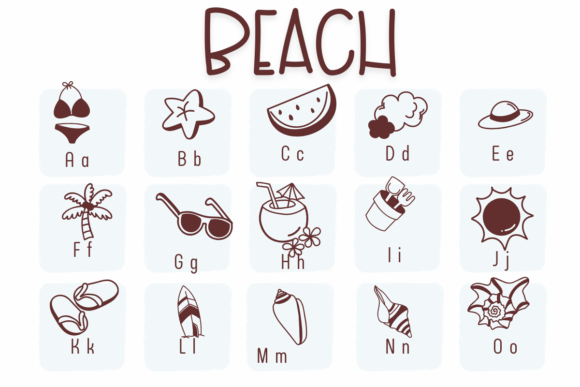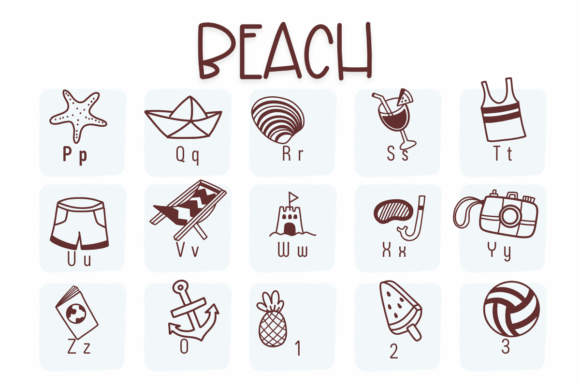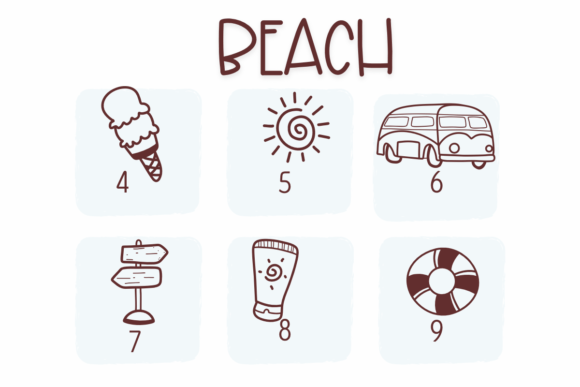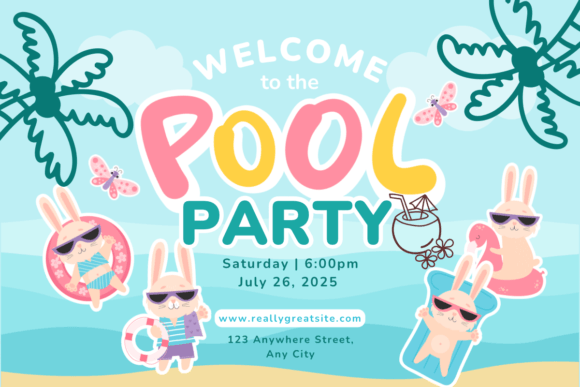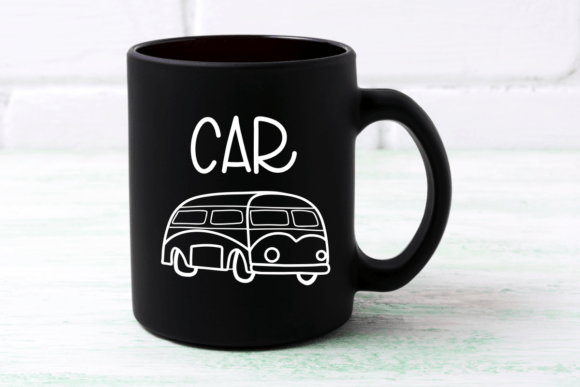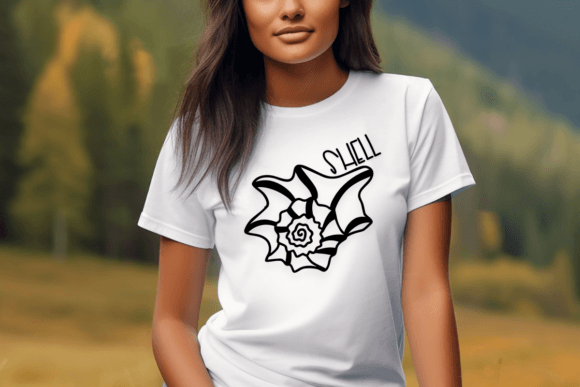
Introducing Beach Font: A Fun and Unique Dingbats Font for Creative Projects
Are you looking for a font that can add a touch of fun and uniqueness to your creative projects? Look no further than Beach Font, a cool and quirky dingbats font that’s perfect for a variety of applications. In this article, we’ll explore the features and benefits of Beach Font, and show you how it can enhance your wedding invitations, DIY projects, crafts, decorations, logos, and many other creative ideas.
What is Beach Font?
Beach Font is a dingbats font that features a fun and playful beach theme. The font is designed to evoke the feeling of a relaxing day at the beach, with characters that resemble beach balls, sunglasses, palm trees, and other summer-inspired icons. The font is perfect for designers and crafters who want to add a touch of whimsy and personality to their projects.
Features of Beach Font
Beach Font has several features that make it a great choice for creative projects. Some of its key features include:
- Unique and Fun Characters: Beach Font features a wide range of unique and fun characters, including beach-themed icons, shapes, and symbols.
- Scalable: Beach Font is scalable, meaning it can be used in a variety of sizes and applications, from small crafts to large billboards.
Uses for Beach Font
Beach Font is a versatile font that can be used in a variety of creative projects. Here are some ideas to get you started:
- Wedding Invitations: Add a touch of fun and whimsy to your wedding invitations with Beach Font. Use it to create custom beach-themed invitations that set the tone for a fun and relaxed wedding celebration.
- DIY Projects: Beach Font is perfect for DIY projects, such as scrapbooking, card making, and other paper crafts. Use it to add a personal touch to your projects and make them stand out.
- Crafts and Decorations: Use Beach Font to create custom signs, banners, and decorations for your home or office. It’s perfect for beach-themed decor, summer parties, and other outdoor events.
- Logos and Branding: Beach Font can be used to create custom logos and branding materials for businesses and organizations. It’s perfect for companies that want to convey a fun and relaxed vibe.
Tips for Using Beach Font
Here are some tips for using Beach Font in your creative projects:
- Use it Sparingly: Beach Font is a fun and playful font, but it can be overwhelming if used too much. Use it sparingly to add a touch of whimsy to your projects.
- Pair it with Other Fonts: Beach Font pairs well with other fonts, such as sans serif fonts and script fonts. Experiment with different font combinations to find the perfect look for your project.
- Experiment with Colors: Beach Font looks great in a variety of colors, from bright and bold to pastel and soft. Experiment with different colors to find the perfect look for your project.
Beach Font is a fun and unique dingbats font that’s perfect for creative projects. With its beach theme and playful characters, it’s a great choice for designers and crafters who want to add a touch of whimsy and personality to their work. Whether you’re creating wedding invitations, DIY projects, crafts, decorations, logos, or other creative ideas, Beach Font is a great choice. So why not give it a try and see what you can create?